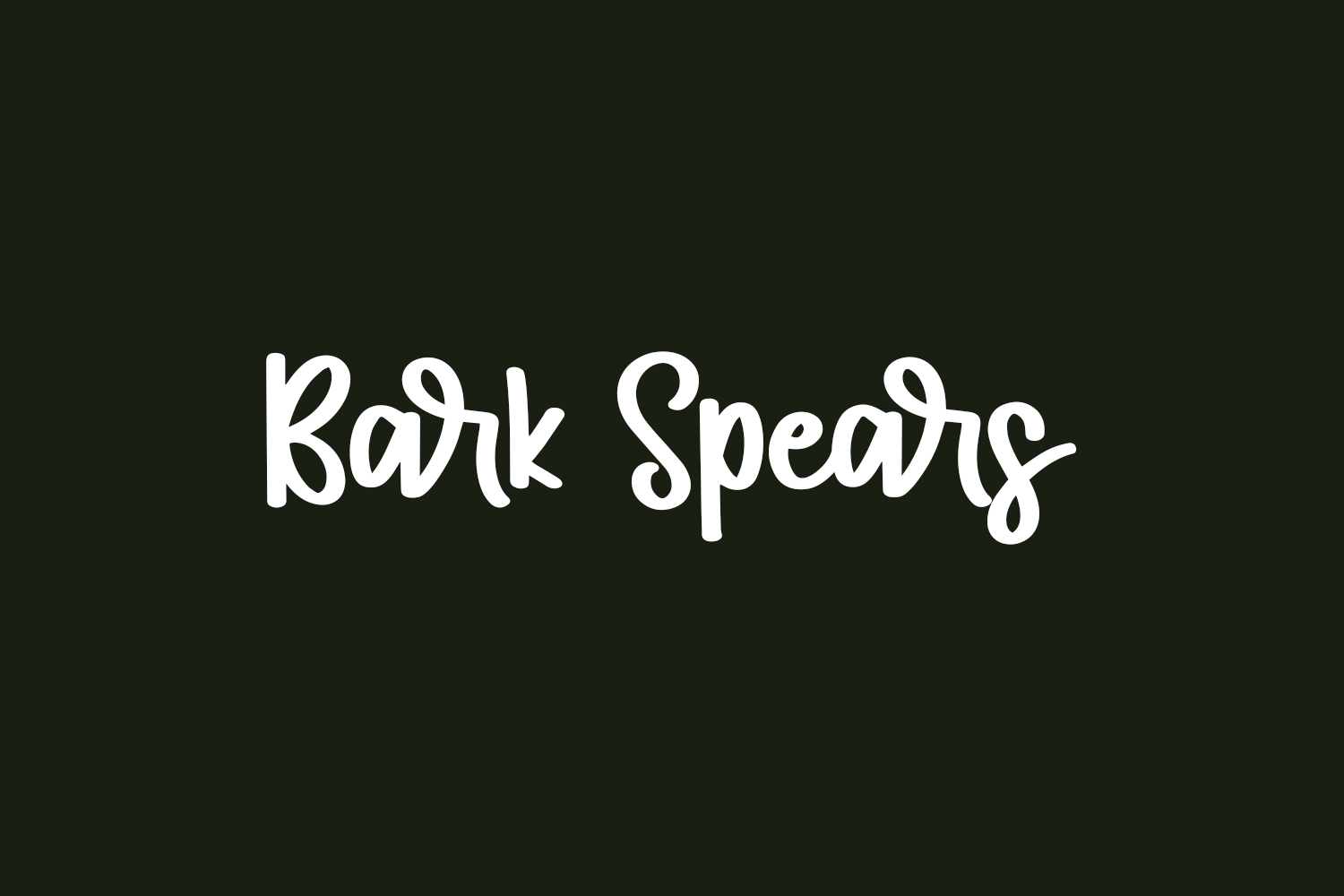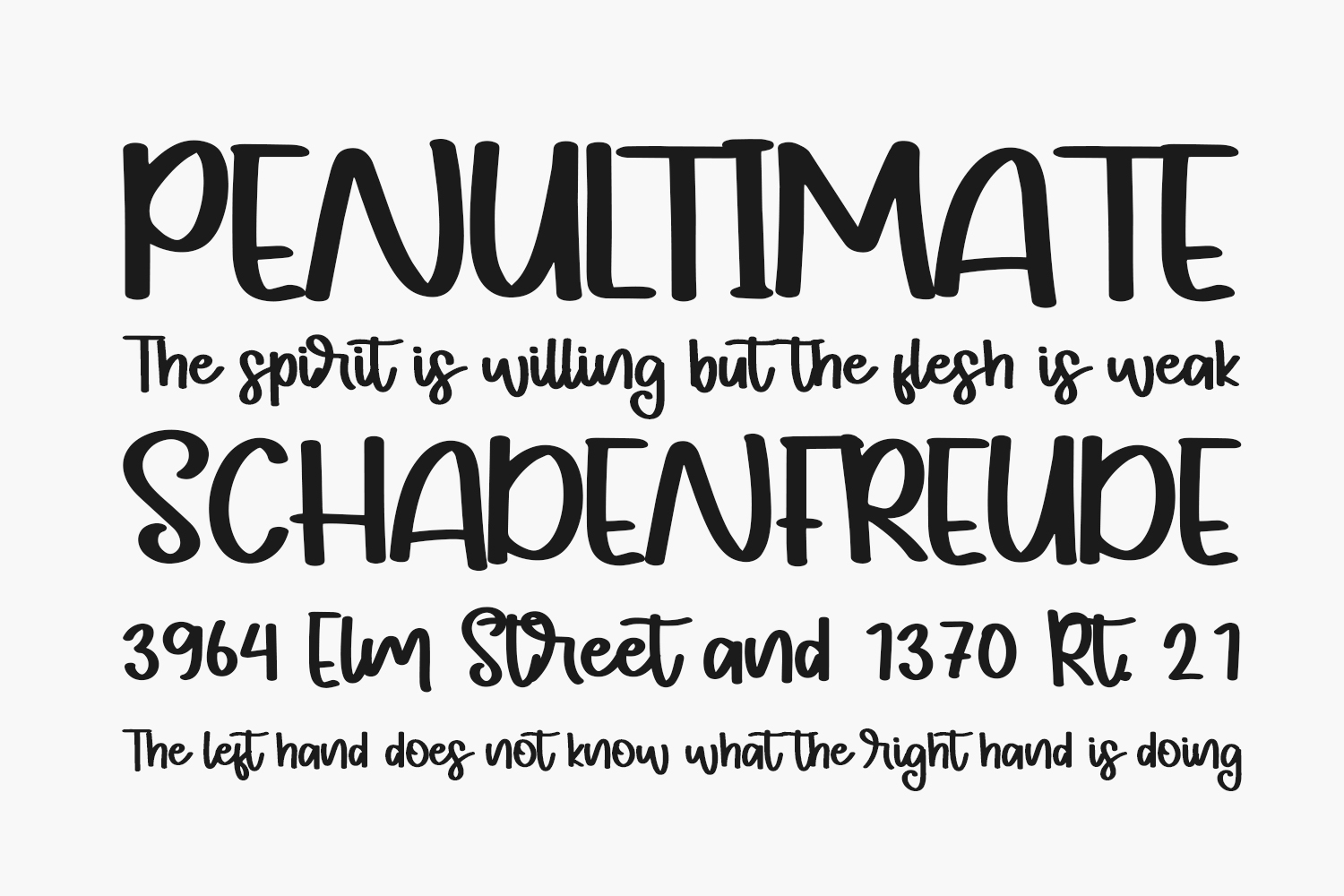
Bark Spears Free Font is like taking a stroll through a mystical forest, where the trees seem to come alive with their gnarled bark and twisting branches. This script handwritten font captures the essence of nature’s beauty and mystery, with its delicate curves and sharp edges. Each letter seems to have been etched by hand, giving it a raw and authentic feel that is both charming and captivating. Whether you’re designing a logo for an outdoor adventure brand or creating a poster for a folk music festival, Bark Spears Free Font will bring a touch of rustic charm to your project. Bark Spears Free Font is free for personal use only. Please purchase the full version for commercial use.